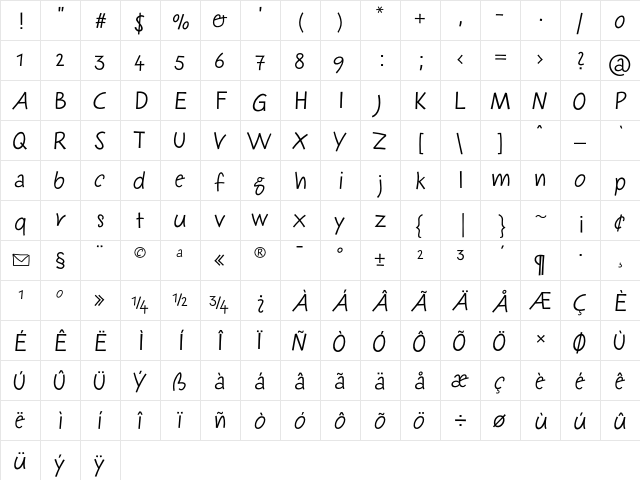
Friday Regular Font Preview
Friday Regular
Friday Regular Font Details
Design Context for Friday Typeface
Friday takes a measured approach to typography — its balanced proportions and neutral character make it a reliable workhorse for both digital and print work.